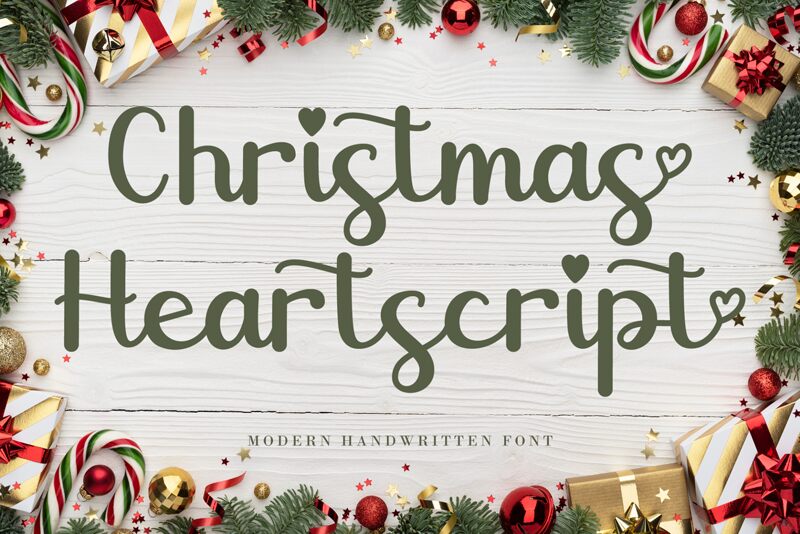
Christmas Heartscript font by AEN Creative Studio is a charming holiday script font with a touch of whimsy. Designed to capture the magical essence of the festive season, it includes heart motifs for added holiday cheer. This handwritten decorative typeface seamlessly combines the festive spirit with a modern flair. Christmas Heartscript is cohesive, inviting, and friendly, all qualities perfect for designs that demand personality.
The font is appropriate for any digital holiday design, including e-cards, invitations, posters, packaging design, and even stickers. However, you can use it in physical settings in signage for flower shops, photobooths, and hotel events.